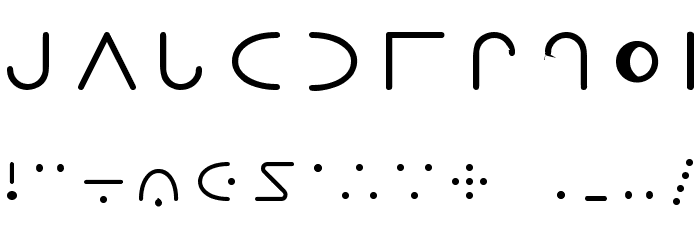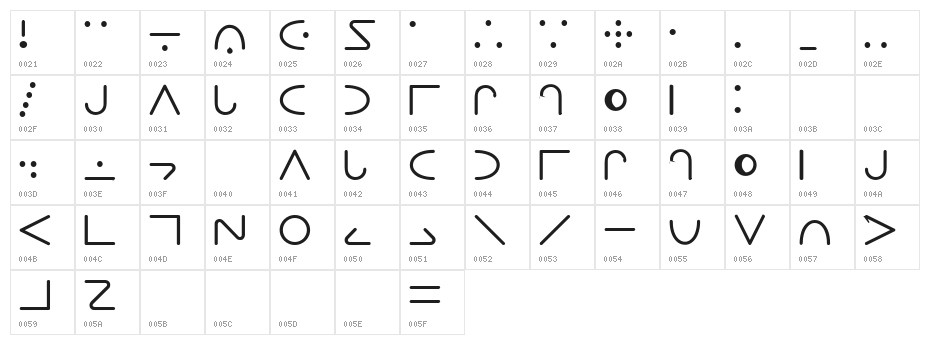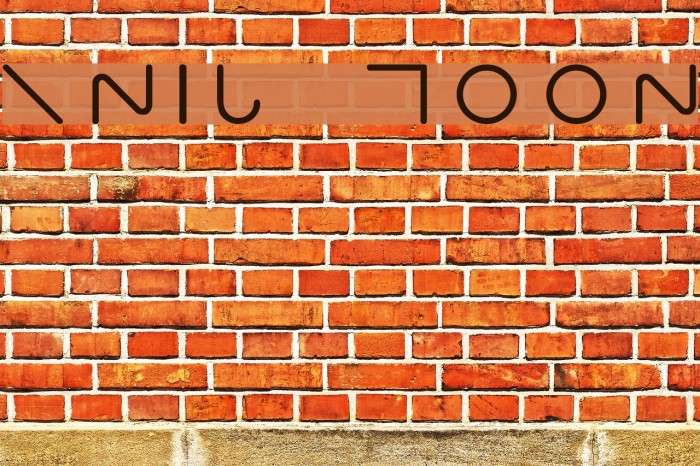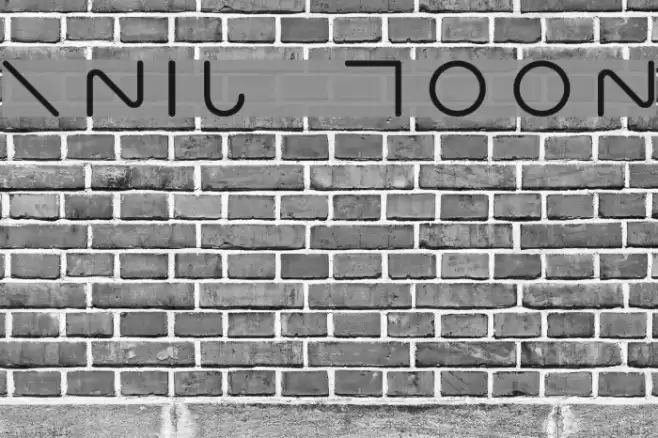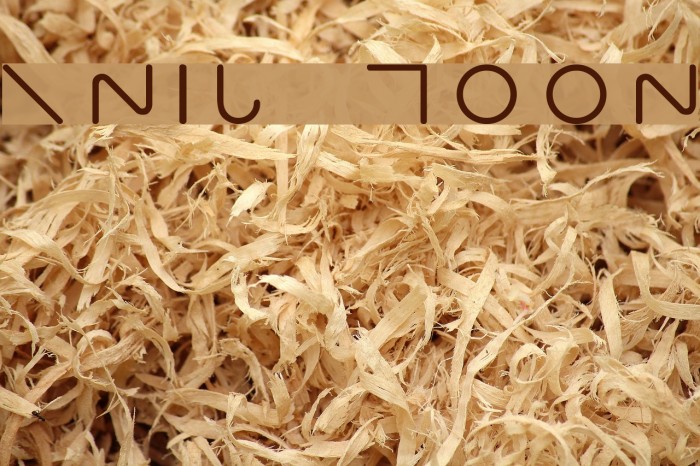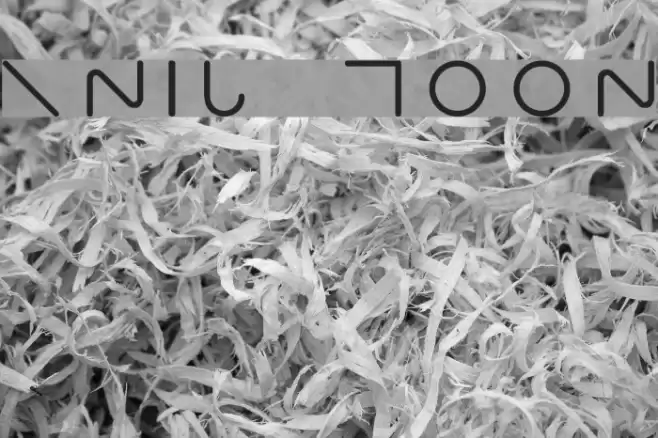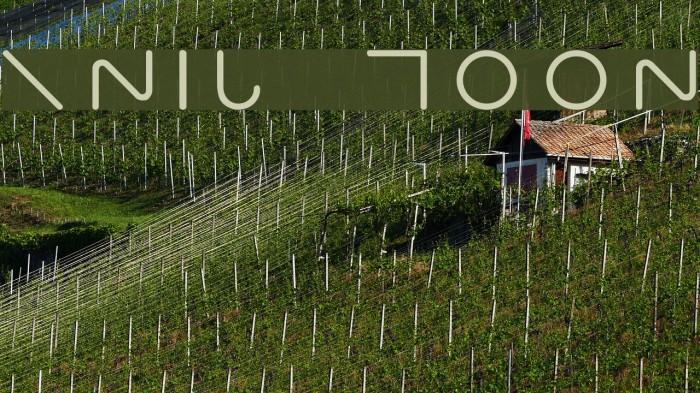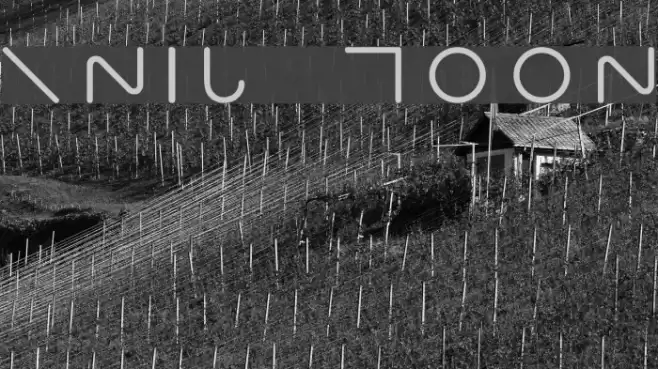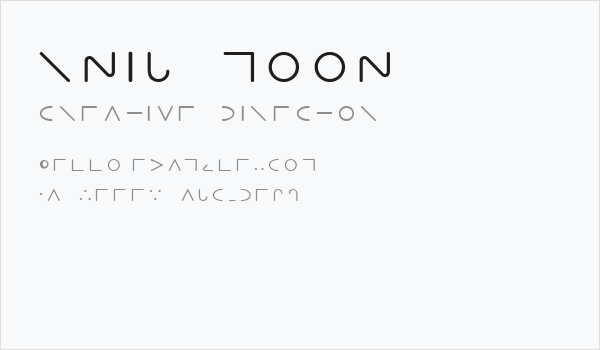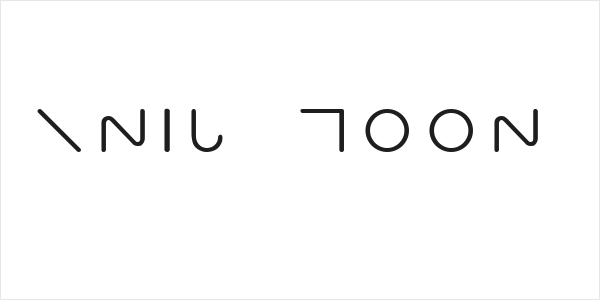
RNIB MOON Font
| Категория | Images & Symbols |
| Общий стиль | Functional |
| Область применения | Tactile reading, Accessibility |
| Рекомендуемые проекты | Ideal for creating educational materials, signage, and books for the visually impaired, enhancing accessibility. |